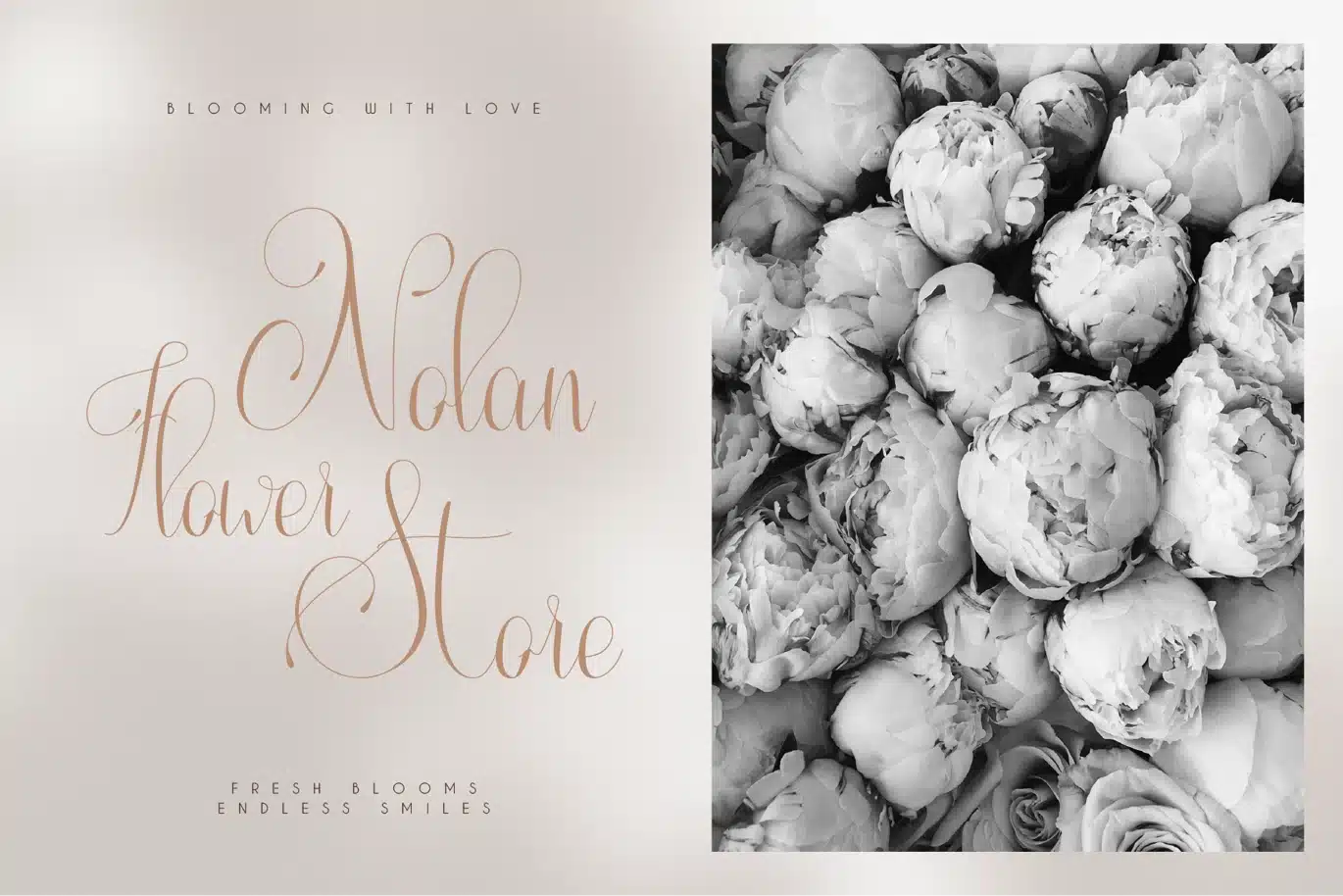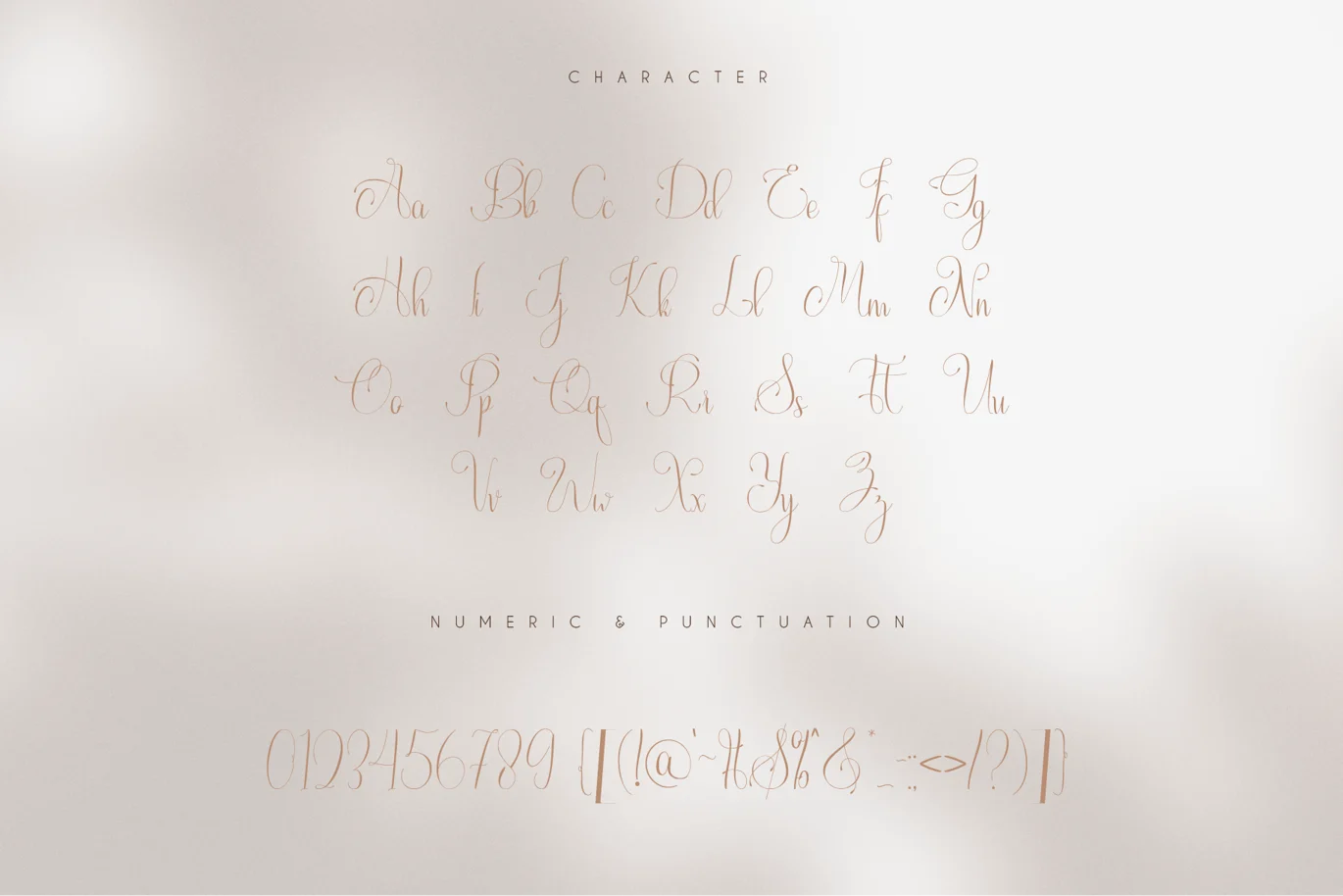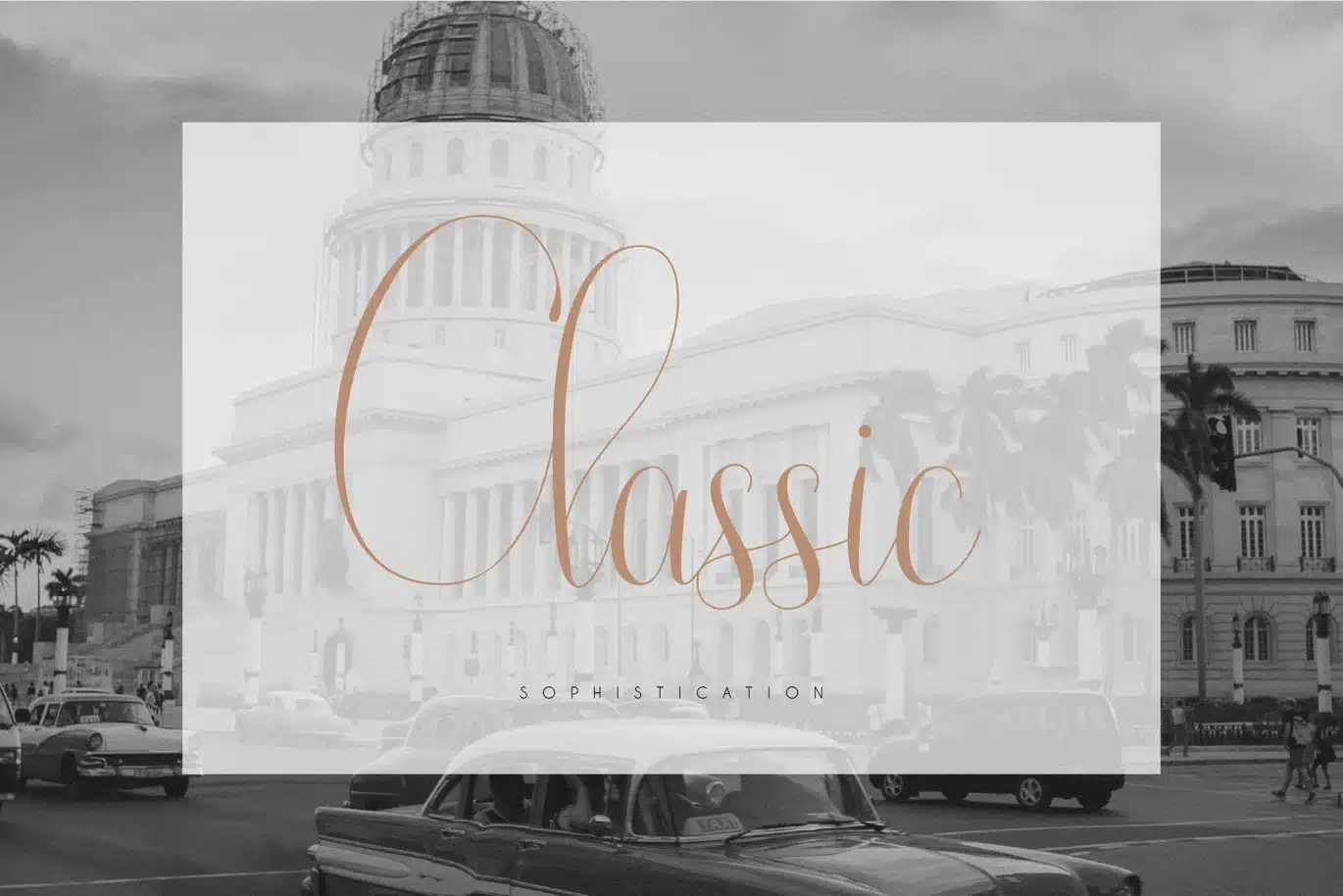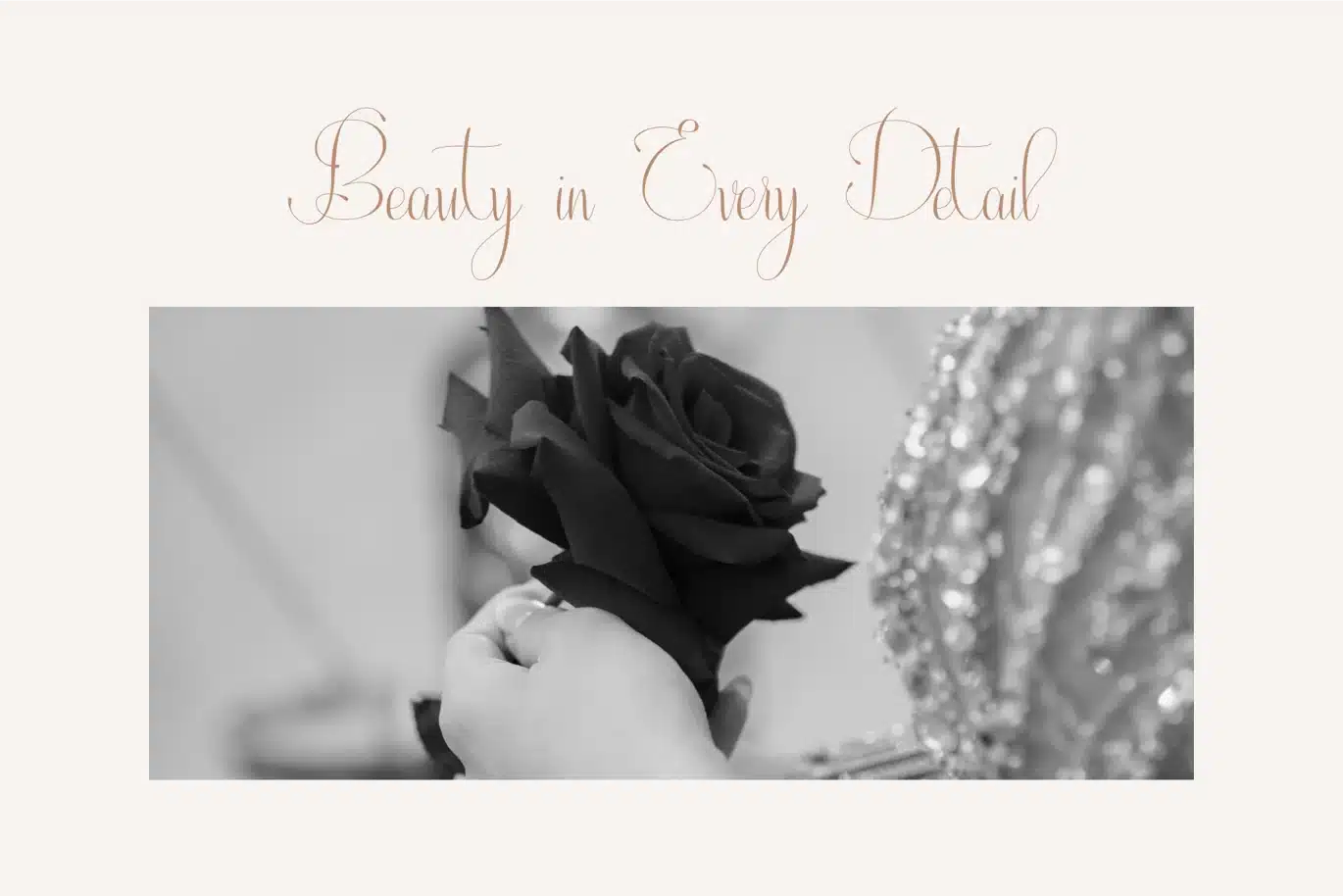
Giluna – Handwritten Font
Giluna is a script handwritten font that combines whimsical elegance with organic, flowing curves. Its design evokes the feeling of personal, hand-written text, making it ideal for projects that need a creative and intimate touch.